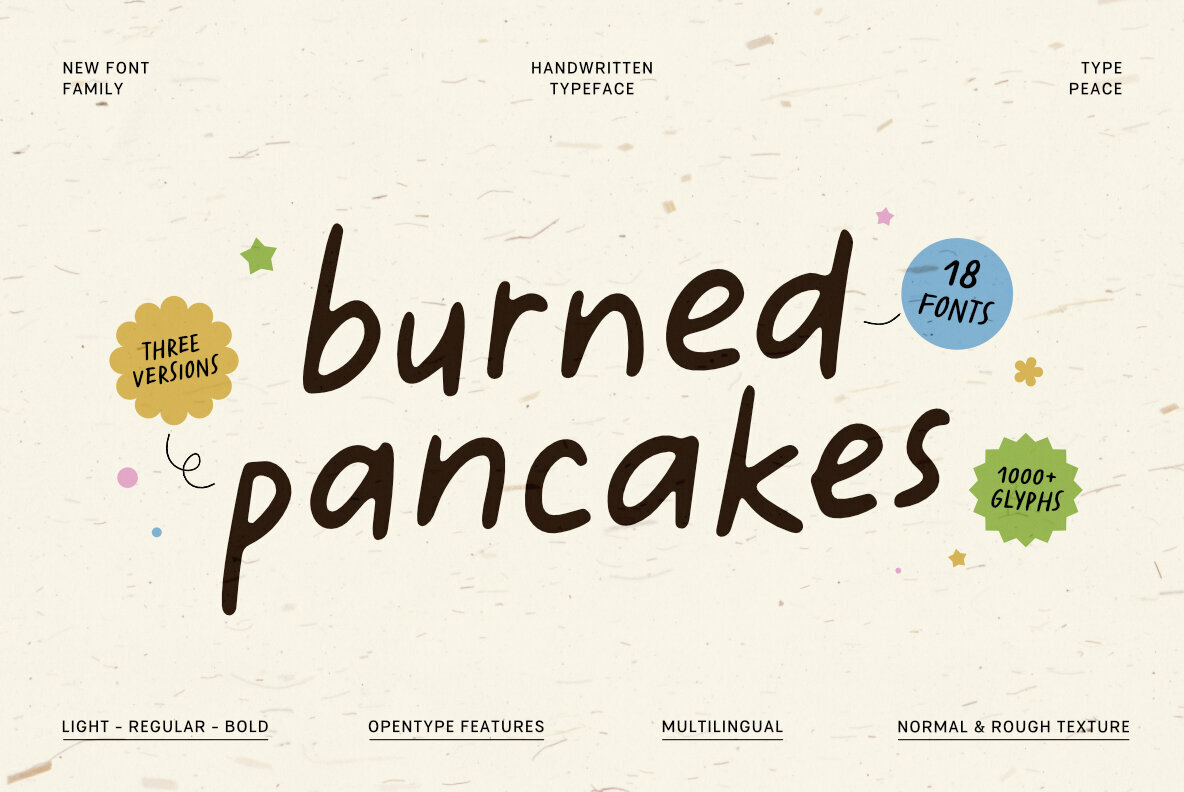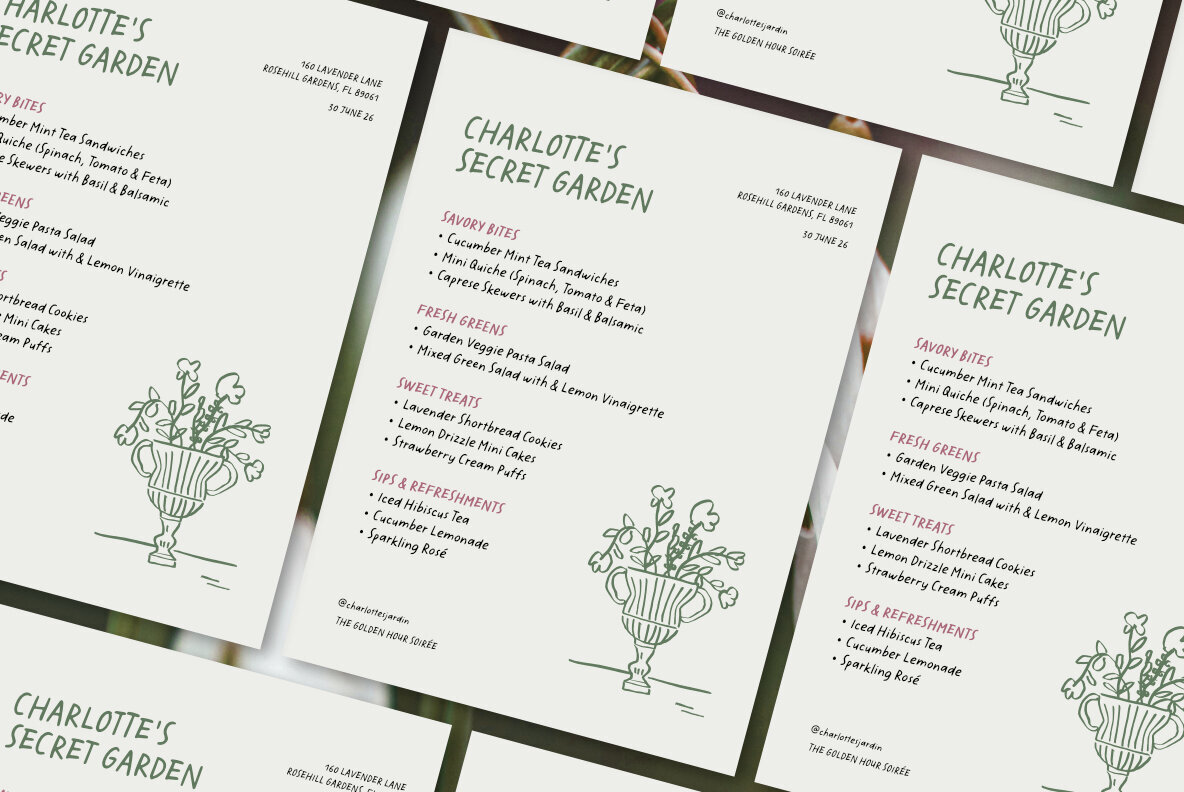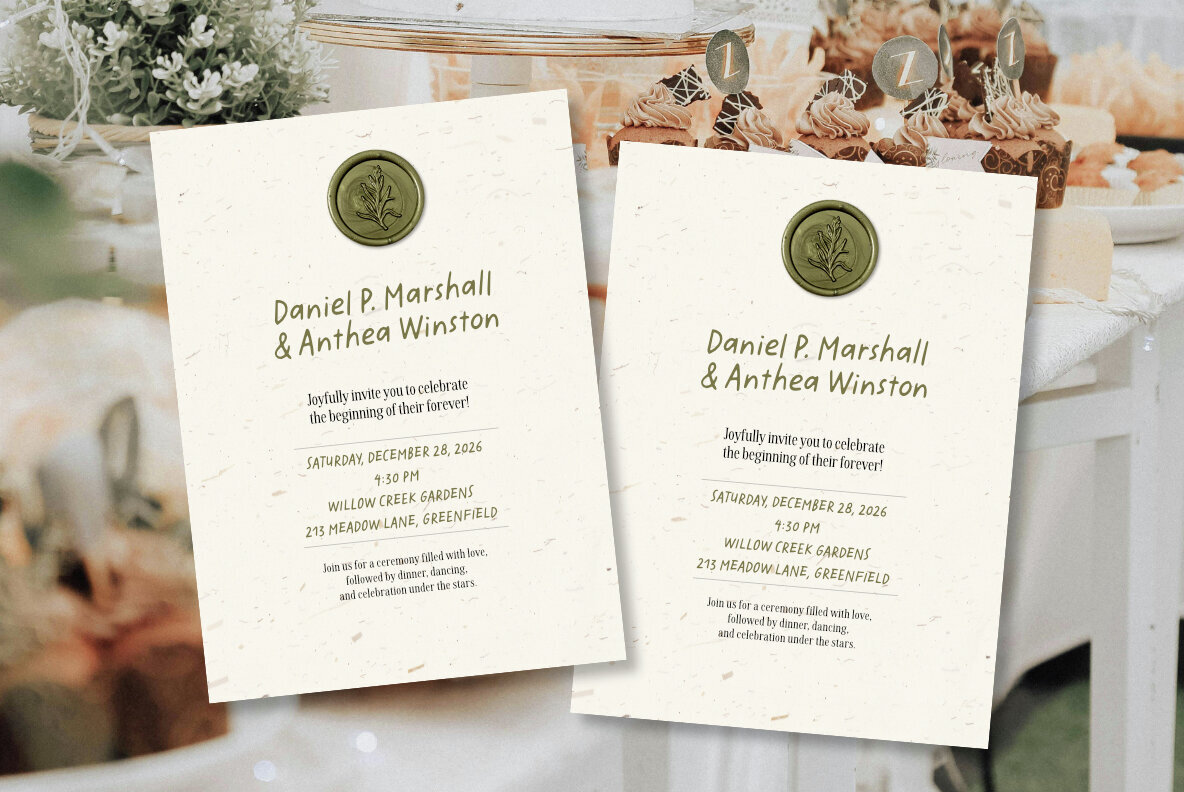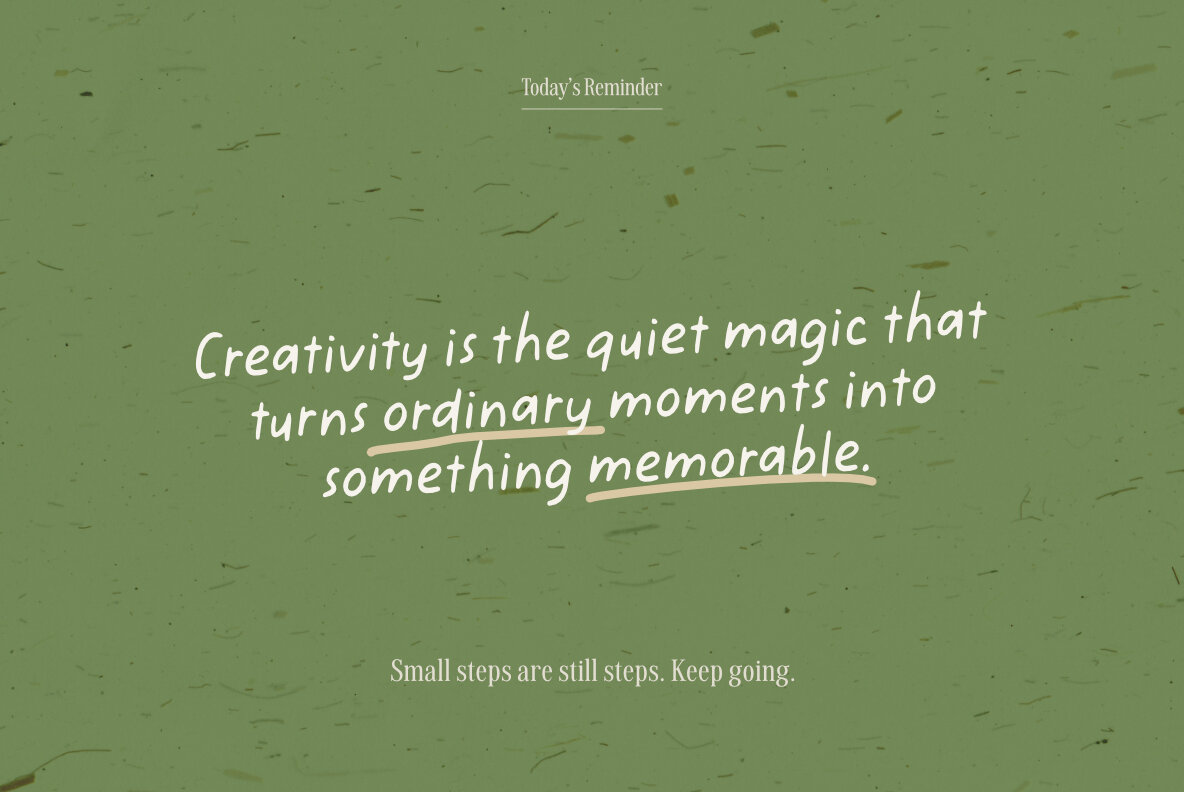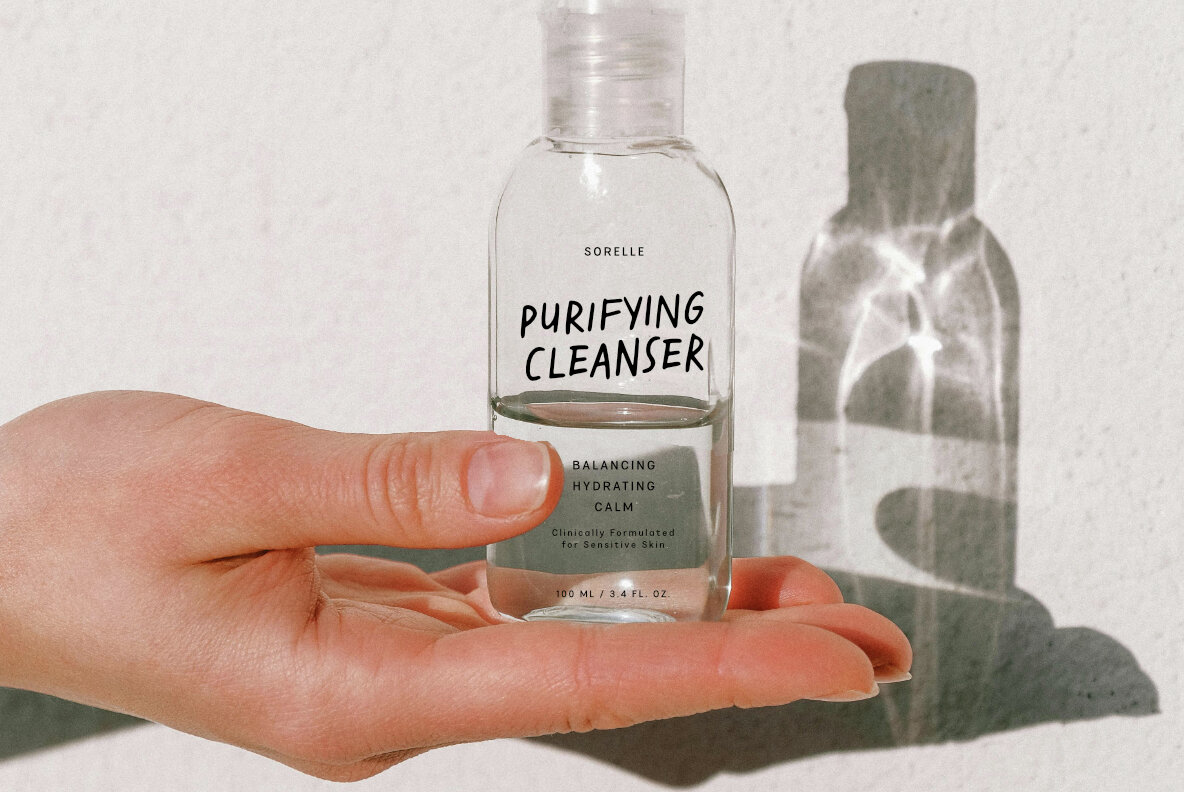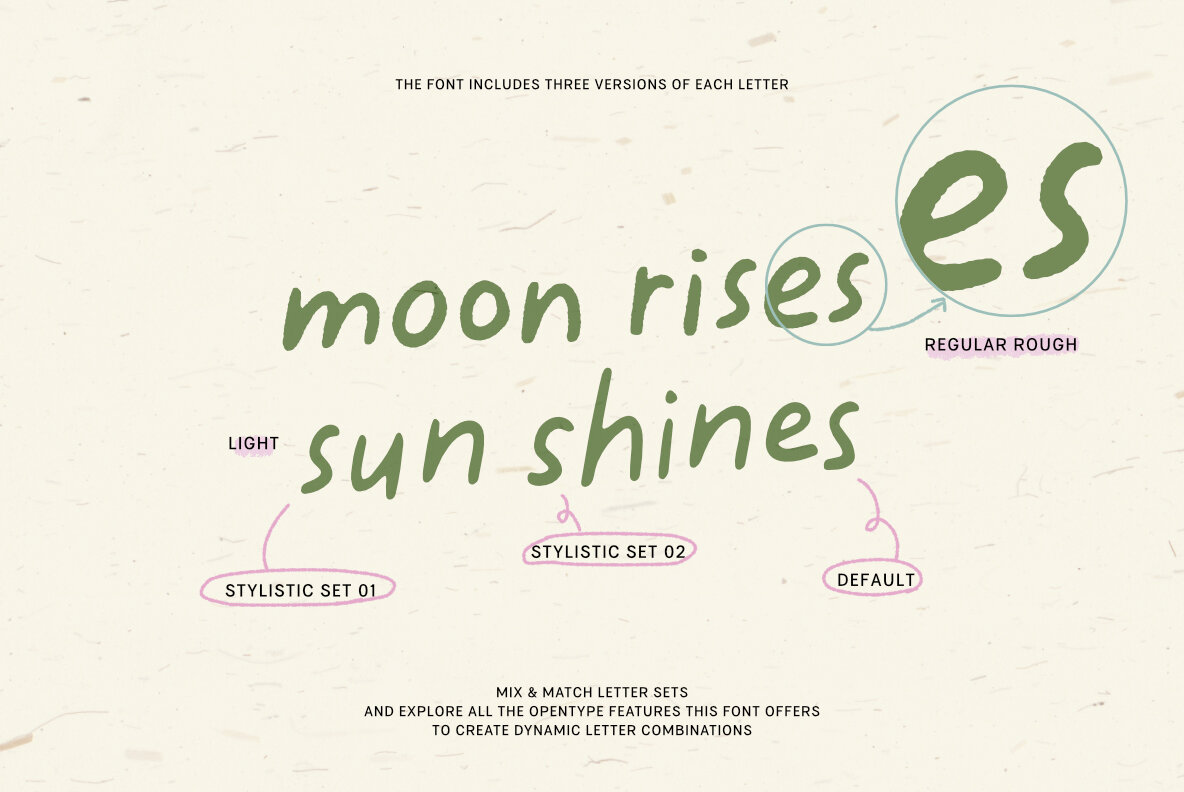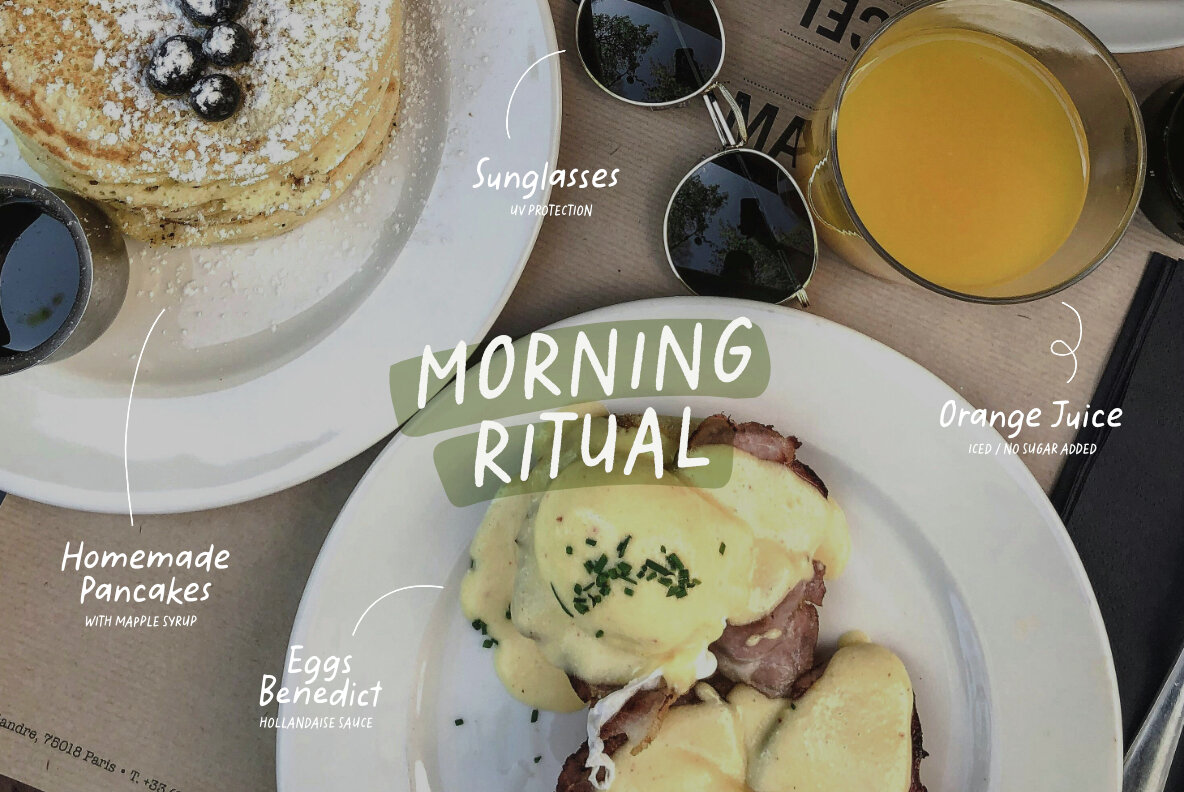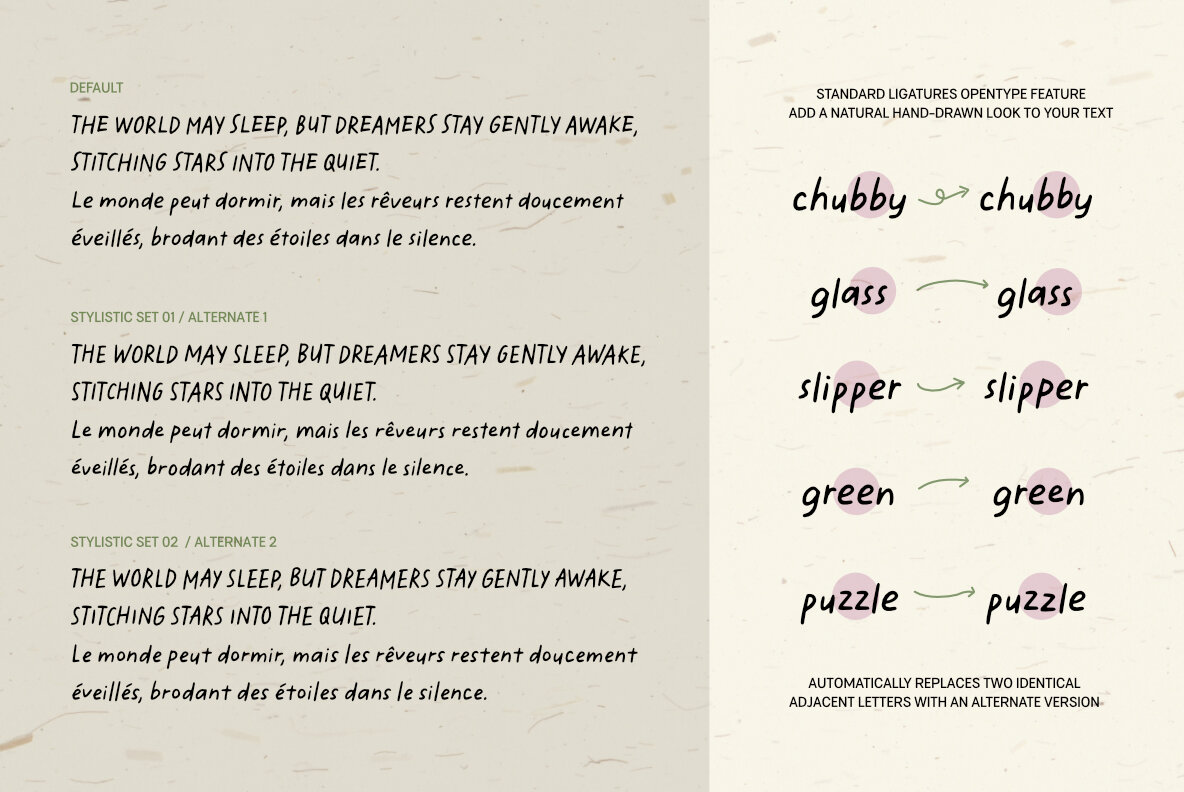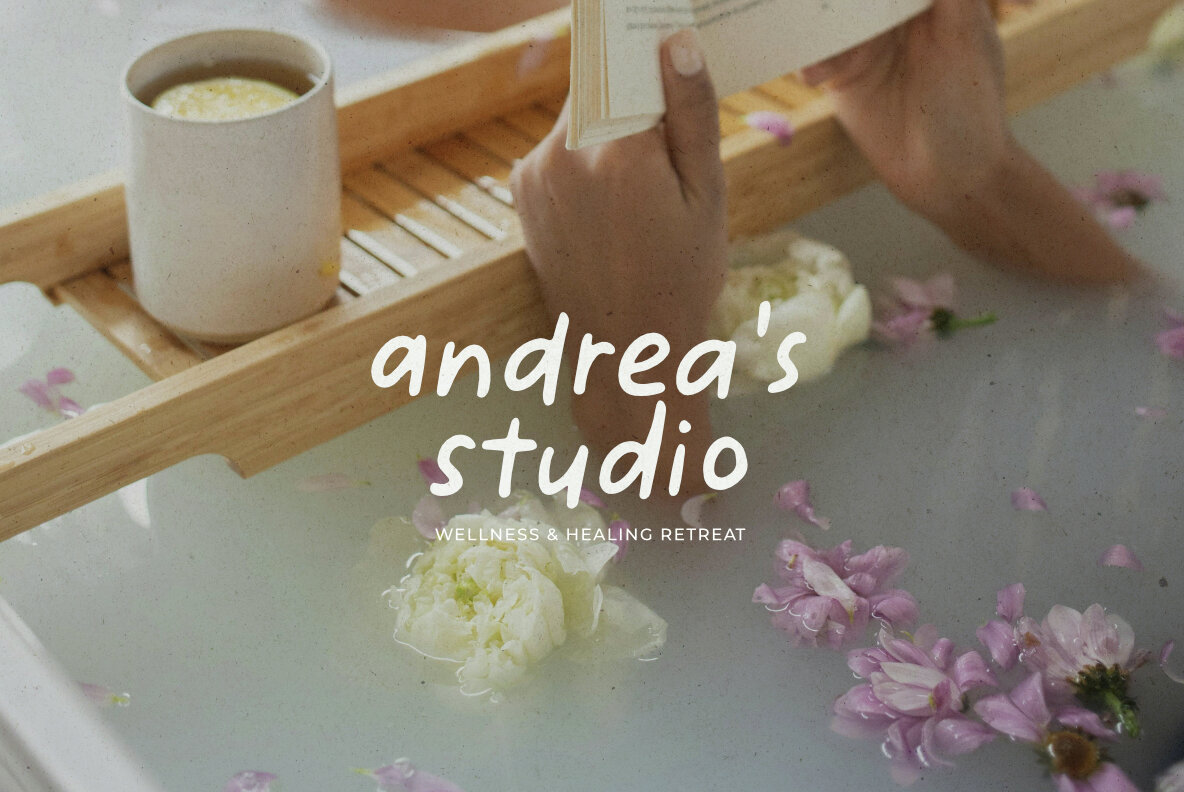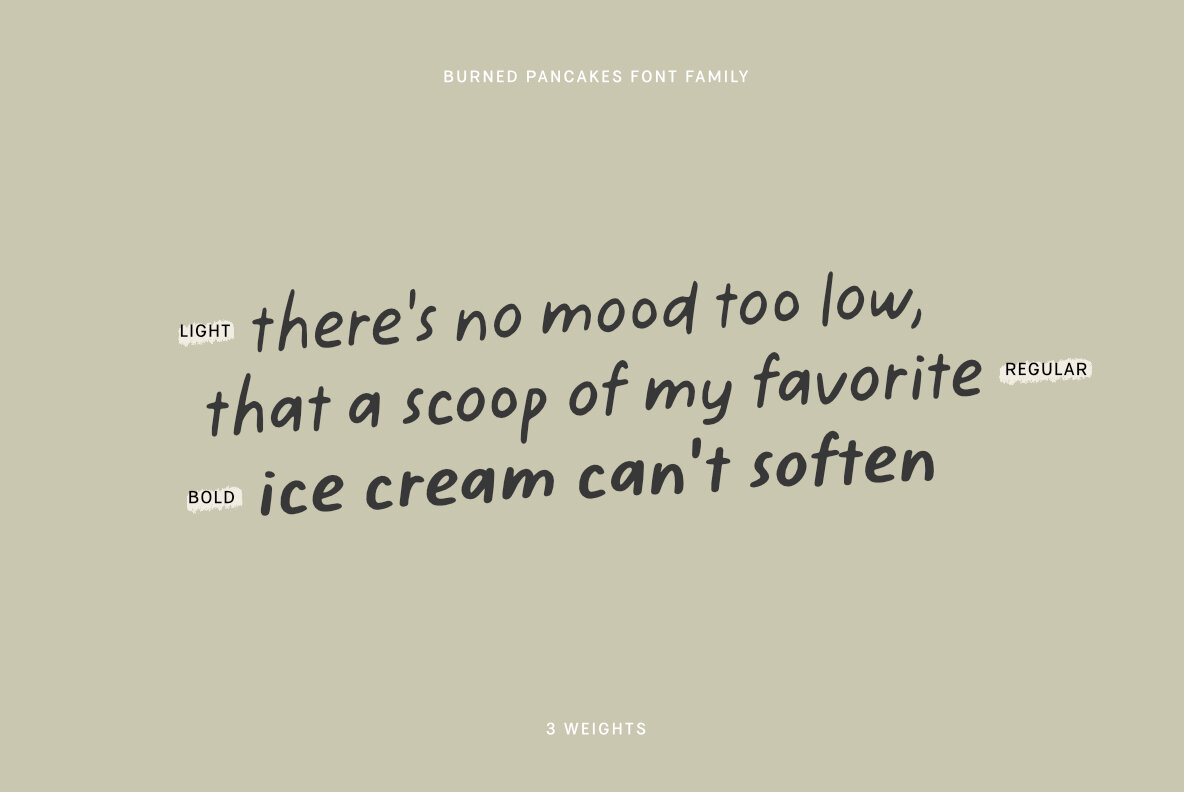
Burned Pancakes Font
Burned Pancakes is a handwritten typeface exuding casual strokes and a relaxed rhythm, infusing your words with natural warmth. This font family boasts three variations of each letter, allowing your designs to feel effortlessly dynamic. Featuring OpenType ligatures and multilingual support, Burned Pancakes is ideal for projects that demand a friendly, personal touch. The font intuitively replaces identical adjacent letters with alternate versions, capturing a more authentic handwritten aesthetic. Toggle the OTF Standard Ligatures option if this feature isn't activated automatically. Experiment with various letter sets and OpenType features to craft dynamic letter arrangements. Even without OpenType support in your software, you can access all letter variations, as each stylistic set is conveniently available as a separate font.Burned Pancakes: Handwritten Typeface with Playful Spirit